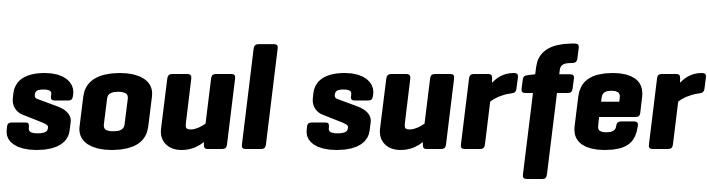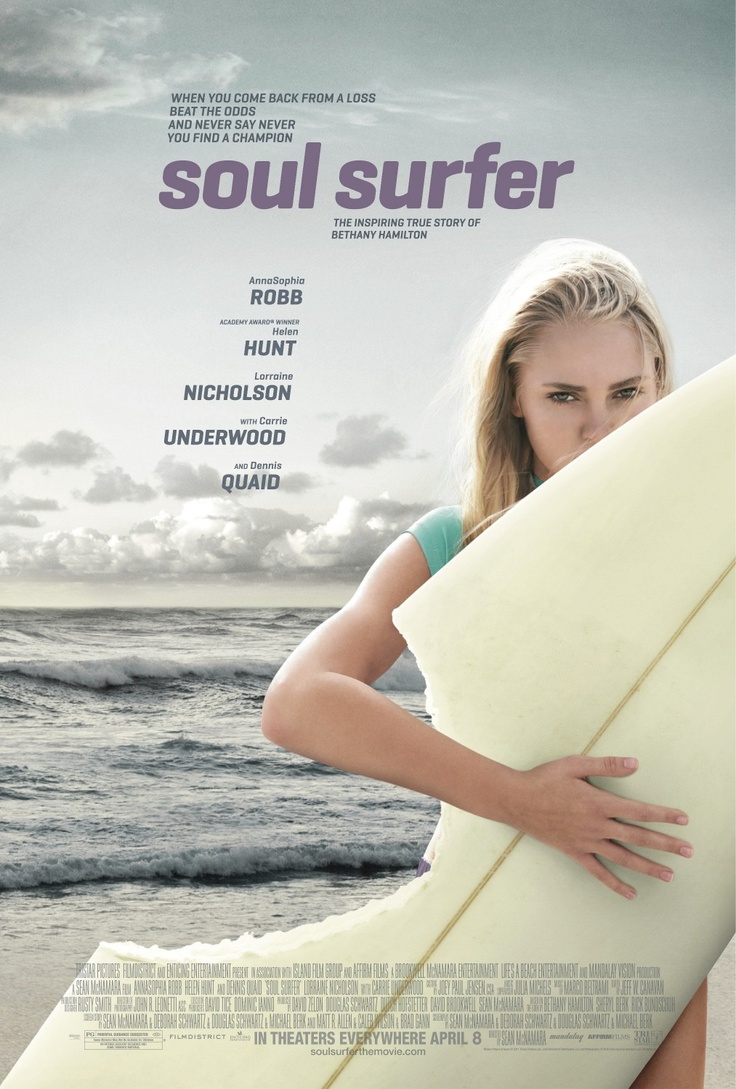
Soul Surfer (film) Font
BiographySoul Surfer is a 2011 American biographical film directed by Sean McNamara, based on the 2004 autobiography Soul Surfer by Bethany Hamilton. The film tells the inspirational story of how Bethany Hamilton, who lost her arm in a shark attack, overcame all odds and became a champion again.
The Soul Surfer film's title in the poster is probably set in Geogrotesque Bold Italic. Geogrotesque is a semi-modular typeface with a subtly rounded edge, designed by Spanish designer Eduardo Manso. There are 7 weights in the type family: Thin, UltraLight, Light, Regular, Medium, SemiBold, and Bold together with complementary italics.